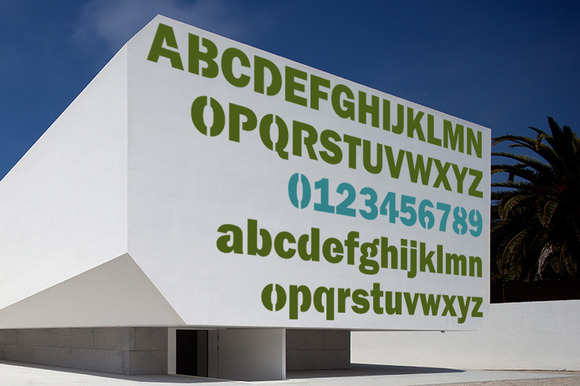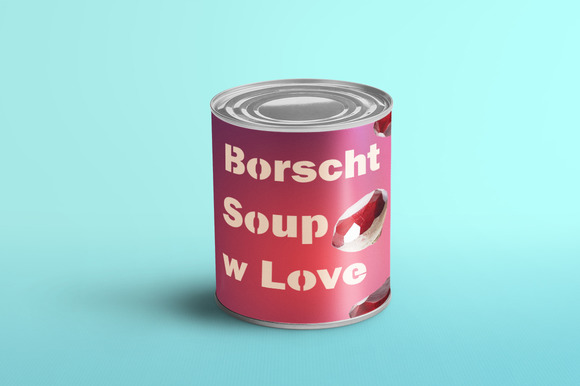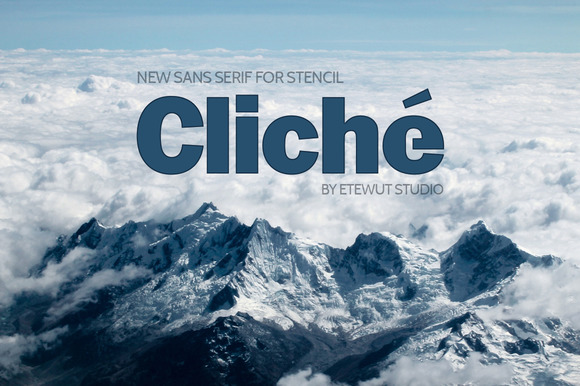
Cliché
Cliché Typeface
Introducing new sans serif for stencil design. It perfectly fits to plotter cutting. You can also check multi language support, by the way cyrillic is included. Mark your goods and product, be it physical or digital. Great! You can sign everything you want, so don’t be shy to try it!!!